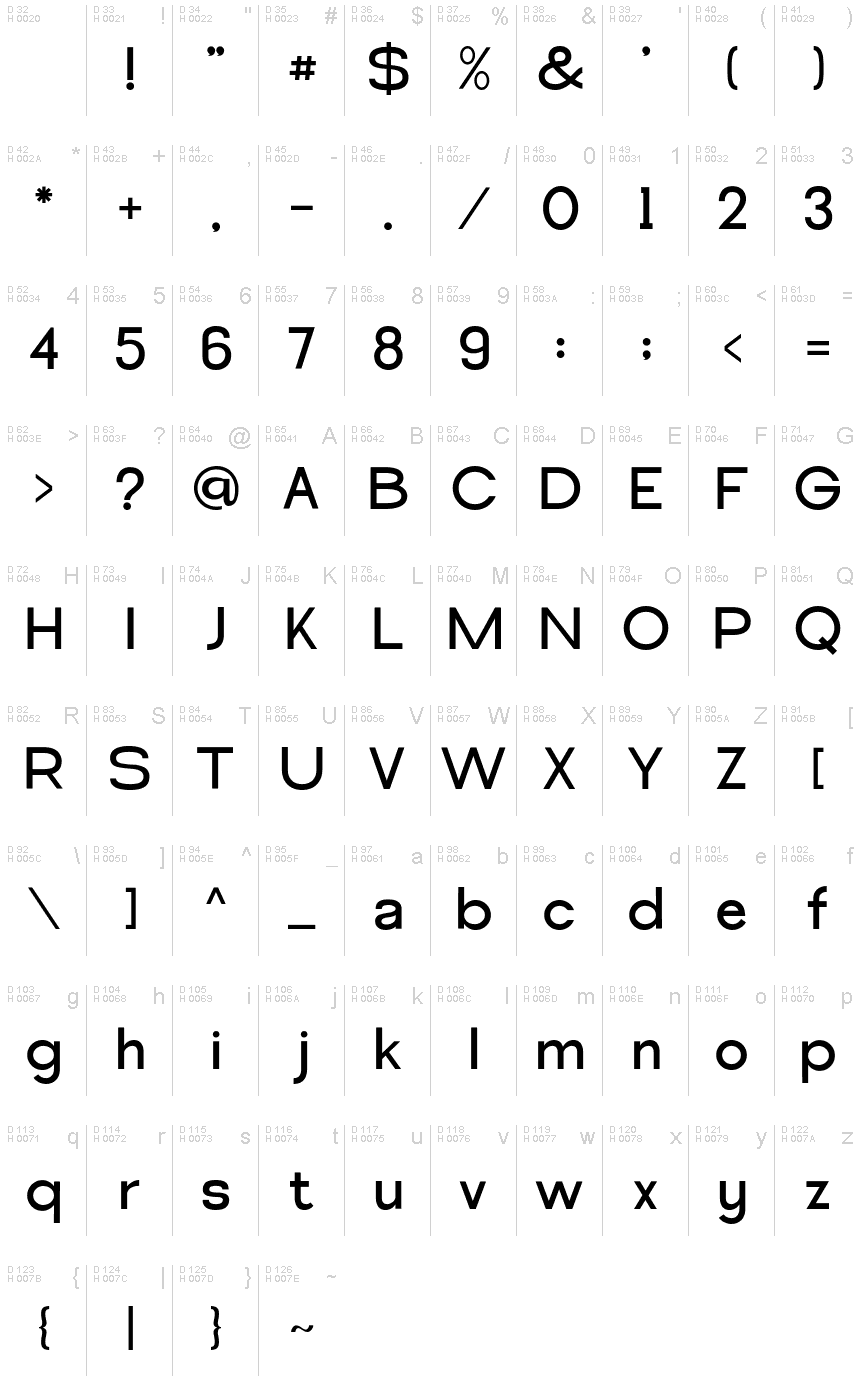
Misto
Step into the world of Misto, a sans serif marvel from the design house of ToniStudio. With its semi-light weight and semi-expanded width, Misto strikes an exquisite balance between delicacy and presence. This font is a contemporary nod to minimalist excellence, drawing inspiration from iconic logos that have reshaped our visual landscape.
Misto's versatility shines across a spectrum of creative canvases. Whether it's the sleek finesse required for template designs, the persuasive power needed for brochures and advertising branding, or the subtle elegance desired in invitations and beauty designs—Misto delivers with sophistication. Its clean lines and modern sensibility make it an ideal choice for video projects as well as elegant crafts.